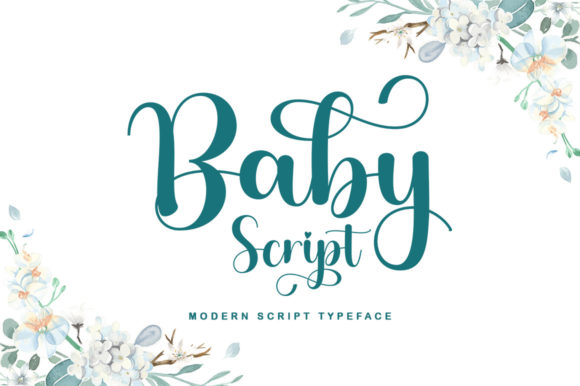
The Baby Font: A Romantic Handwritten Script to Steal Your Heart
Have you ever been in the middle of a design project, and suddenly, you just can’t seem to find the right font? I recall a particularly frustrating experience when a client asked for a romantic, handwritten font for their wedding invitation suite. After scouring through countless font libraries, I stumbled upon the Baby font, and it instantly became the perfect fit. In this article, I’ll share my experience with this beautiful font, its features, and how to make the most of it in your designs.
An Honest Review of Baby Font
The Baby font is a stunning handwritten script that has captured my heart with its elegance and charm. Here’s what I love about it:
- ✨ Romantic feel: The font exudes a sense of warmth and intimacy, making it perfect for projects that require a personal touch.
- ✅ Versatility: From greeting cards to headlines, Baby font can be used in a wide range of applications.
- 💫 PUA encoded: The font is PUA encoded, which means you can easily access all the beautiful glyphs and swashes.
- 🎨 Highly customizable: With its extensive range of OpenType features, you can experiment with different styles and variations.
While Baby font is an excellent choice, there are a few minor quirks to be aware of:
- 🤔 Some characters may require manual kerning: As with any script font, you may need to adjust the kerning of certain characters to achieve optimal results.
- ⚠️ Not suitable for body text: Due to its elegant, cursive nature, Baby font is best used for headlines or short paragraphs.
The Story Behind Baby Font
The Baby font was designed by a talented type designer who aimed to create a romantic, handwritten script that captures the essence of love and elegance. Inspired by vintage love letters and classic typography, the designer poured their heart into crafting a font that’s both beautiful and versatile.
| Is Baby font suitable for body text? | No, Baby font is best used for headlines, titles, or short paragraphs due to its elegant, cursive nature. |